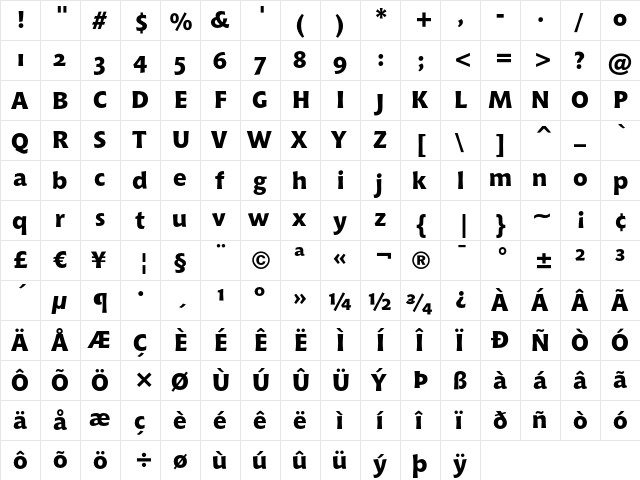
Bitstream Chianti Extra Bold OSF Font Preview
Bitstream Chianti Extra Bold OSF
Design Context for Bitstream Chianti Typeface
Bitstream Chianti offers clean, dependable letterforms without strong stylistic allegiance, making it a practical choice for designers who need flexibility. The heavy weight commands attention and anchors typographic hierarchies.